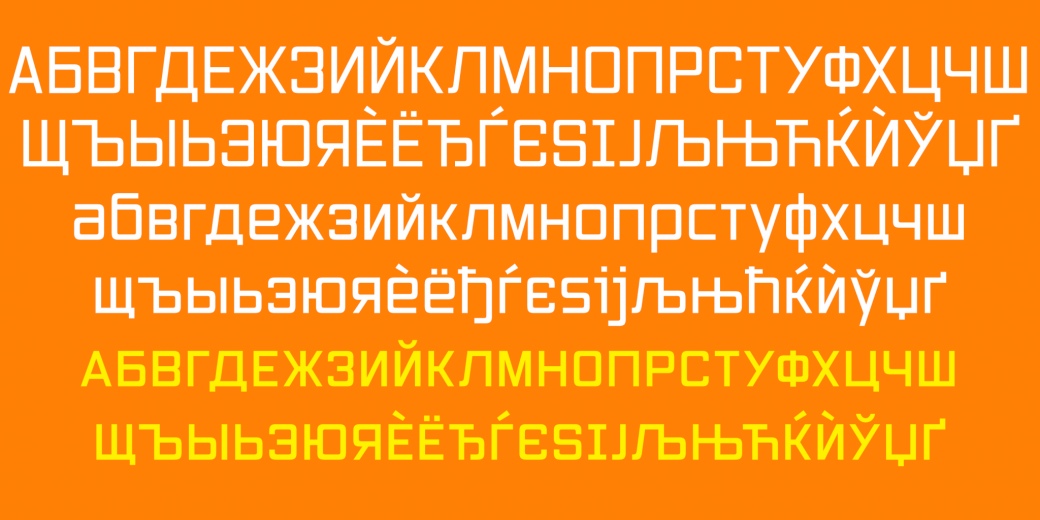
Vox Font
Vox Font is perfect for modern tech company branding, contemporary corporate communications, sleek app interfaces, editorial magazine layouts, professional presentation materials, clean website design, innovative startup logos, minimalist signage systems, sophisticated marketing campaigns, and progressive brand identity systems.
Vox Font creates excitement because it embodies the essence of contemporary communication with its precise geometric construction and forward-thinking character design. The font's clean lines and refined proportions instantly convey innovation and professional confidence, making any brand appear cutting-edge and technologically advanced. Its carefully balanced letterforms and exceptional clarity ensure optimal readability while the modern aesthetic appeals to audiences who appreciate streamlined design and progressive thinking in today's fast-paced digital landscape.
The Vox Font family includes multiple weights and styles: Thin, Light, Regular, Medium, Bold, Black, Ultra Black, Italic variants for each weight, Condensed, Extended, and Display versions. Each variant maintains the font's contemporary character while providing comprehensive typographic flexibility for complex brand systems and diverse communication applications.
This exceptional typeface represents the future of professional typography for modern digital-first organizations and design-conscious brands. Vox Font Free Download offers innovative companies and creative professionals access to premium sans-serif typography that defines excellence in contemporary visual communication. The font's progressive design and technical precision make it ideal for organizations requiring sophisticated typography that performs flawlessly across all digital platforms and traditional media. Whether you're developing comprehensive brand identity systems for technology companies, creating editorial layouts for forward-thinking publications, designing interfaces for innovative digital products, or producing marketing materials for progressive enterprises, this font delivers the contemporary appeal that resonates with modern audiences seeking authenticity and innovation. Its versatile design ensures outstanding performance from mobile screens to large-scale installations while maintaining perfect character integrity and readability. The font excels in global applications and cross-platform consistency. Modern communication professionals value its ability to convey authority and innovation simultaneously, essential for building credibility in competitive technology markets. The extensive character set includes comprehensive international language support, technical symbols, and mathematical notation, making it indispensable for global technology companies and design agencies seeking typography that projects contemporary sophistication, technical excellence, and forward-thinking innovation across diverse international markets and digital ecosystems worldwide.